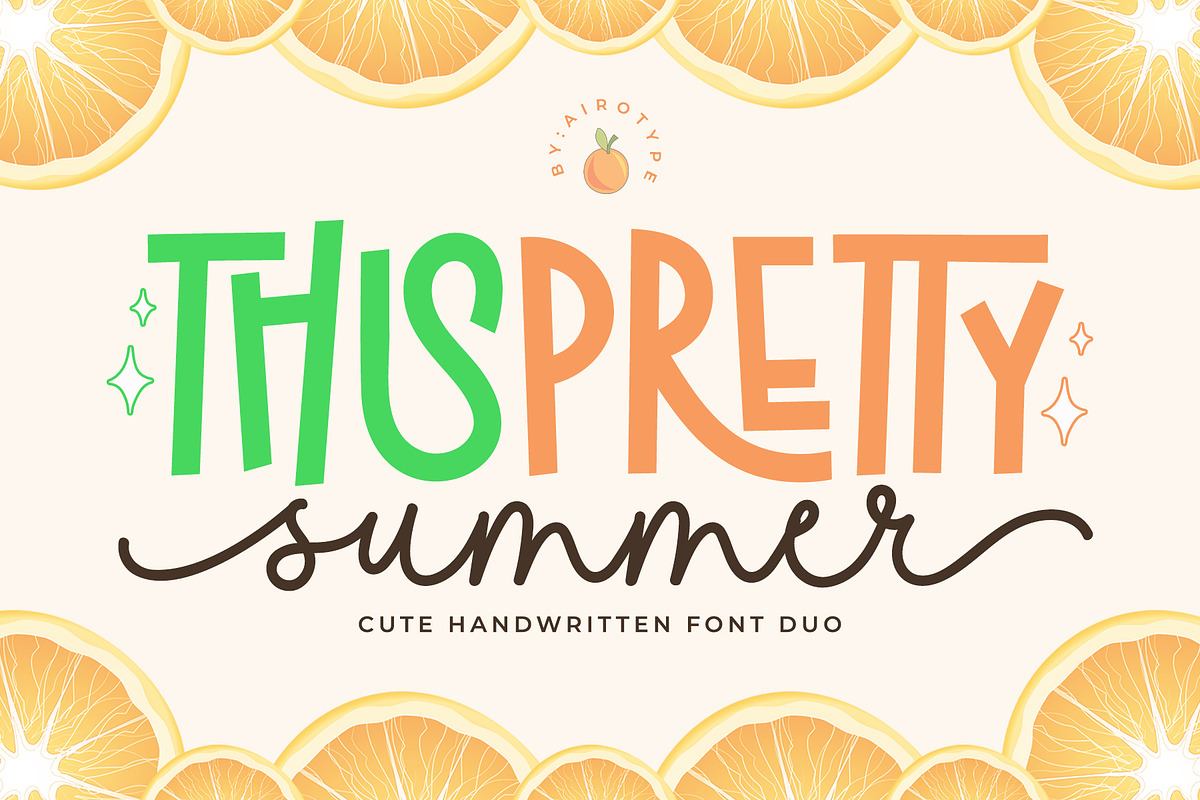
Pretty Summer – Cute Fonts Duo Free Download is a playful and charming font pair that includes a bubbly script and a sweet sans serif, perfect for summer-themed designs, children’s projects, social media posts, and fun branding. This delightful duo brings a fresh, cheerful vibe to any creative work. Please note that you must purchase this font for commercial use, but it is available as a free download for testing purposes. Brighten up your designs with Pretty Summer – Cute Fonts Duo Free Download and let your typography radiate warmth, joy, and personality.